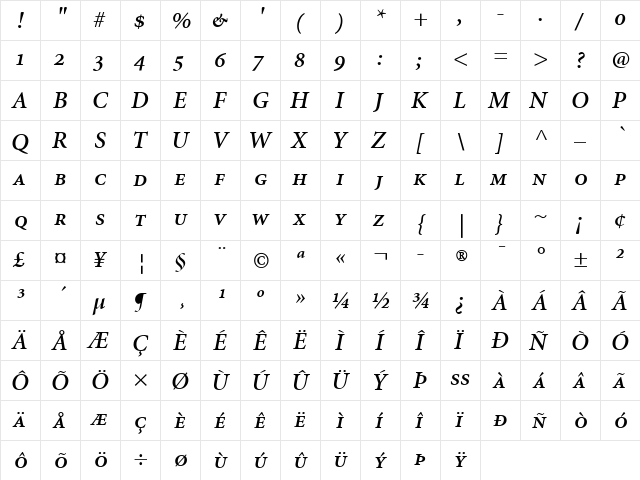
Minion RegularSC Bold Italic Font Preview
Minion RegularSC Bold Italic
Design Context for Minion RegularSC Typeface
Minion RegularSC is a composed and adaptable typeface that performs quietly and consistently across a wide range of design contexts. Its italic angle brings a sense of urgency and motion to the letterforms. The heavy weight commands attention and anchors typographic hierarchies.
Pro Tip: Use Minion RegularSC for emphasis, pull quotes, and subheadings where its slanted energy can add rhythm to the layout.